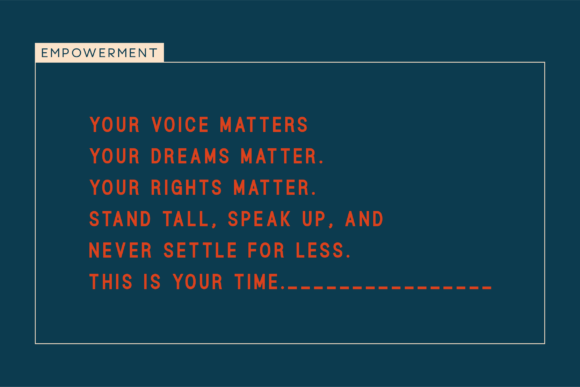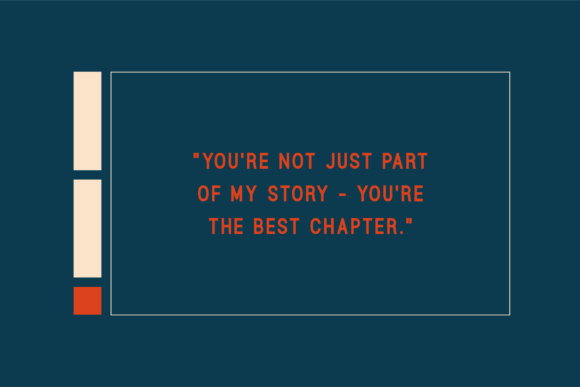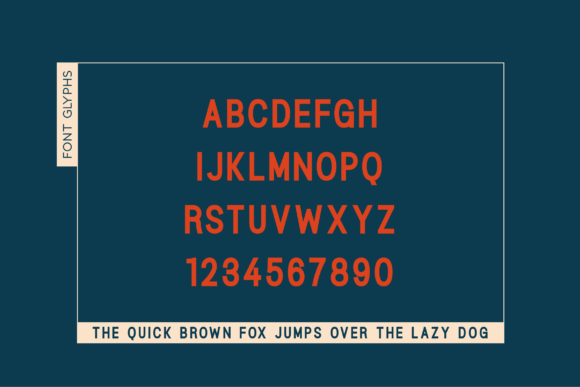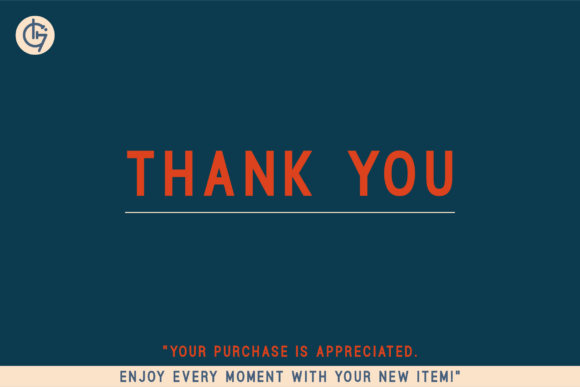
The Erython Font: A Modern Sans-Serif for Creative Projects
I’ll never forget the struggle I faced while working on a branding project for a tech startup. My client wanted a font that was modern, professional, and highly legible across various digital platforms. After hours of searching through font libraries, I stumbled upon Erython – a sleek sans-serif font that instantly caught my attention. Its clean lines, geometric shapes, and confident presence made it an ideal choice for the project. In this article, I’ll share my experience with Erython, its features, and how to make the most of this versatile font in your creative projects.
A First Impression: What I Love About Erython
Erython has quickly become one of my go-to fonts for various design projects. Here are some aspects that I absolutely love about it:
- ✨ **Exceptional clarity**: Erython’s clean and geometric letterforms make it highly legible, even at small font sizes.
- ✅ **Professional tone**: The font’s balanced proportions and minimalistic strokes give it a polished, professional feel that’s perfect for branding and editorial projects.
- 💻 **Digital versatility**: Erython’s sleek design makes it an excellent choice for digital interfaces, including websites, mobile apps, and social media graphics.
- 🎨 **Design flexibility**: The font’s simple yet bold structure allows it to work well with a wide range of design styles, from minimalist to complex compositions.
While Erython is an excellent font, it’s not without its quirks. Here are a few limitations to keep in mind:
- 🤔 **Limited character set**: Erython’s character set is clean and minimalistic, but it might not include some specialized characters or glyphs that you need for specific projects.
- ⚠️ **Overuse of bold weights**: While Erython’s bold weights are stunning, overusing them can make your design look heavy-handed. Balance bold text with regular or light weights for visual harmony.
Erython was designed with the goal of creating a modern sans-serif font that embodies simplicity, clarity, and professionalism. Inspired by the geometric shapes and clean lines of modern architecture, Erython’s designer aimed to create a font that would excel in digital environments while maintaining a timeless aesthetic.
| What is Erython’s primary use case? | Erython is designed for creative projects that require a modern, professional, and highly legible font, such as branding, editorial layouts, and digital interfaces. |
| Is Erython suitable for body text? | Yes, Erython is legible enough to be used for body text, especially in digital formats. However, it’s best used in combination with other fonts for optimal readability. |
| Does Erython support OpenType features? | Yes, Erython supports OpenType features, including stylistic alternates and glyphs. You can access these features in compatible design software. |